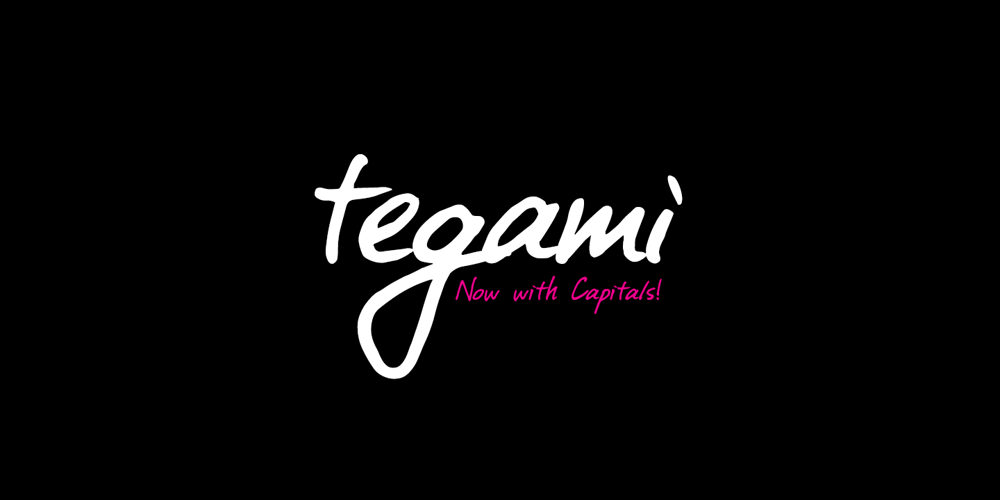
Tegami
Tegami font
Tegami Font Family was designed by Matthew Tyndall, Kaori Onoda and published by Dismantle Destroy. Tegami contains 3 styles and family package options. This font is from the handwriting of Kaori Onoda. The font is named after the Japanese word tegami which means letter. This is because the writing was taken from a letter she wrote to me. This includes 3 fonts because it was originally designed to be only lowercase, but by popular demand I included the capital letters. This means there are now 2 of each capital and lowercase letter.